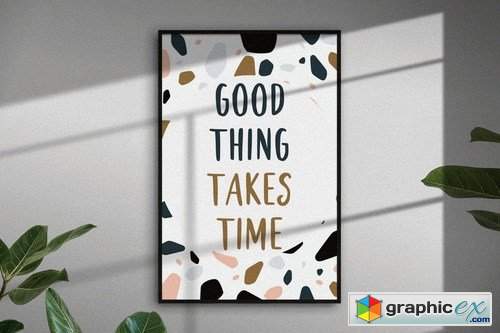
Dos Herman - The All Caps Handmade Font
Dos Herman - The All Caps Handmade Font, every single letter has been carefully crafted to make your text looks beautiful. it's perfect for logos, name cards, magazine layouts, invitations, headers, or even large-scale artwork.